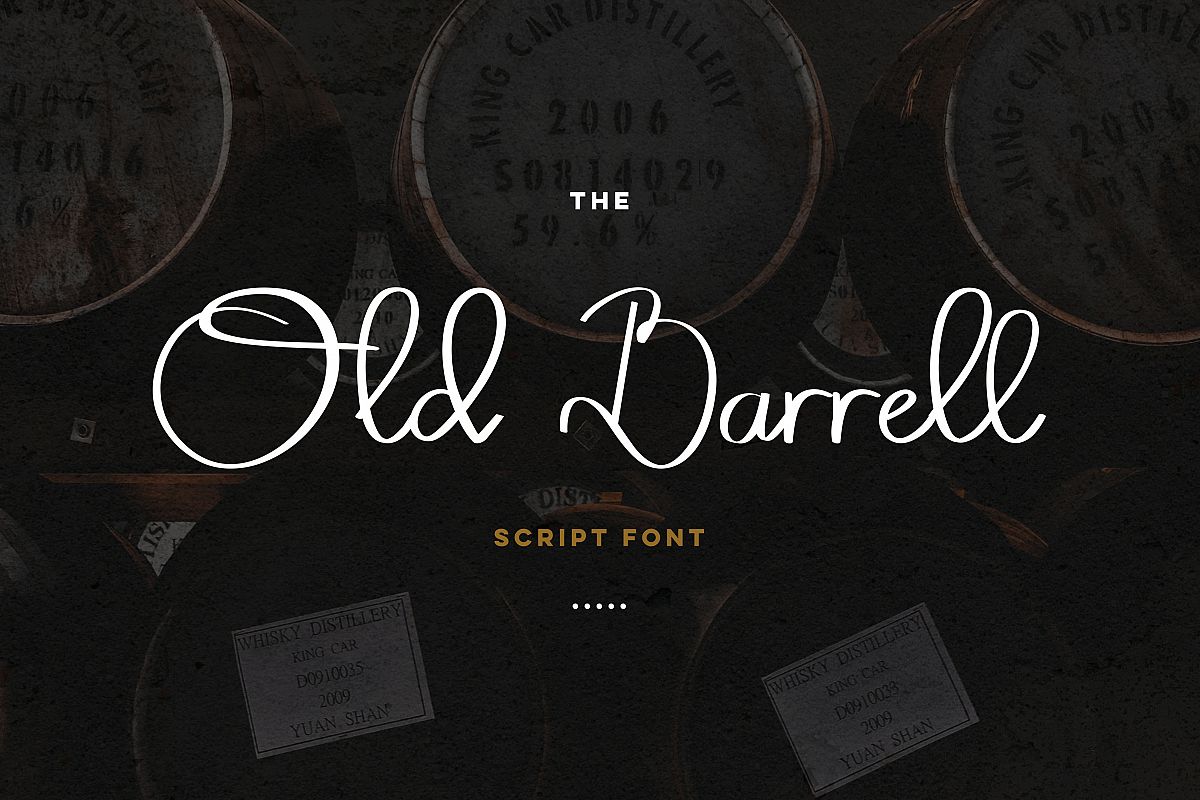
Old Barrell script font
What is Old Barrell Font?
Introduce, this is my latest product, I named it
This product is Old Barrell.
This font can be fit in masculine or feminine themes
and wisely designed to create your text looks outstanding. will craft a well-ordered appearance for
many different projects such as quotes, blog header, poster, wedding, branding,
logo, fashion, apparel, letter, invitation, stationery, etc.